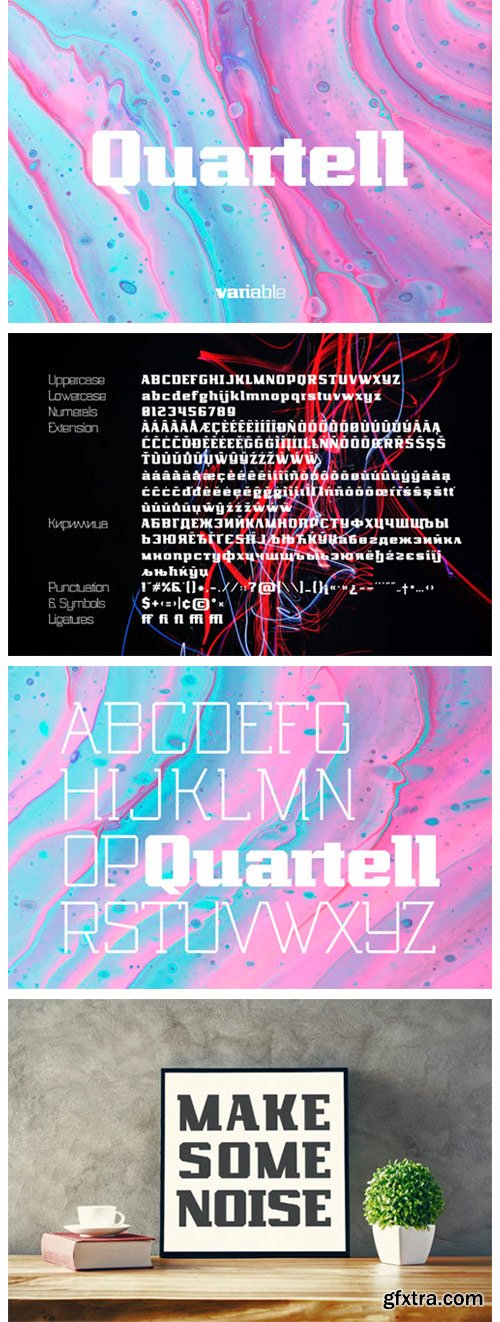
Quartell Variable Font
Quartell Variable is an awesome slab serif font perfect for creating bright captions and unforgettable logos. Fall in love with its incredibly unique style, and use it to create stunning designs!